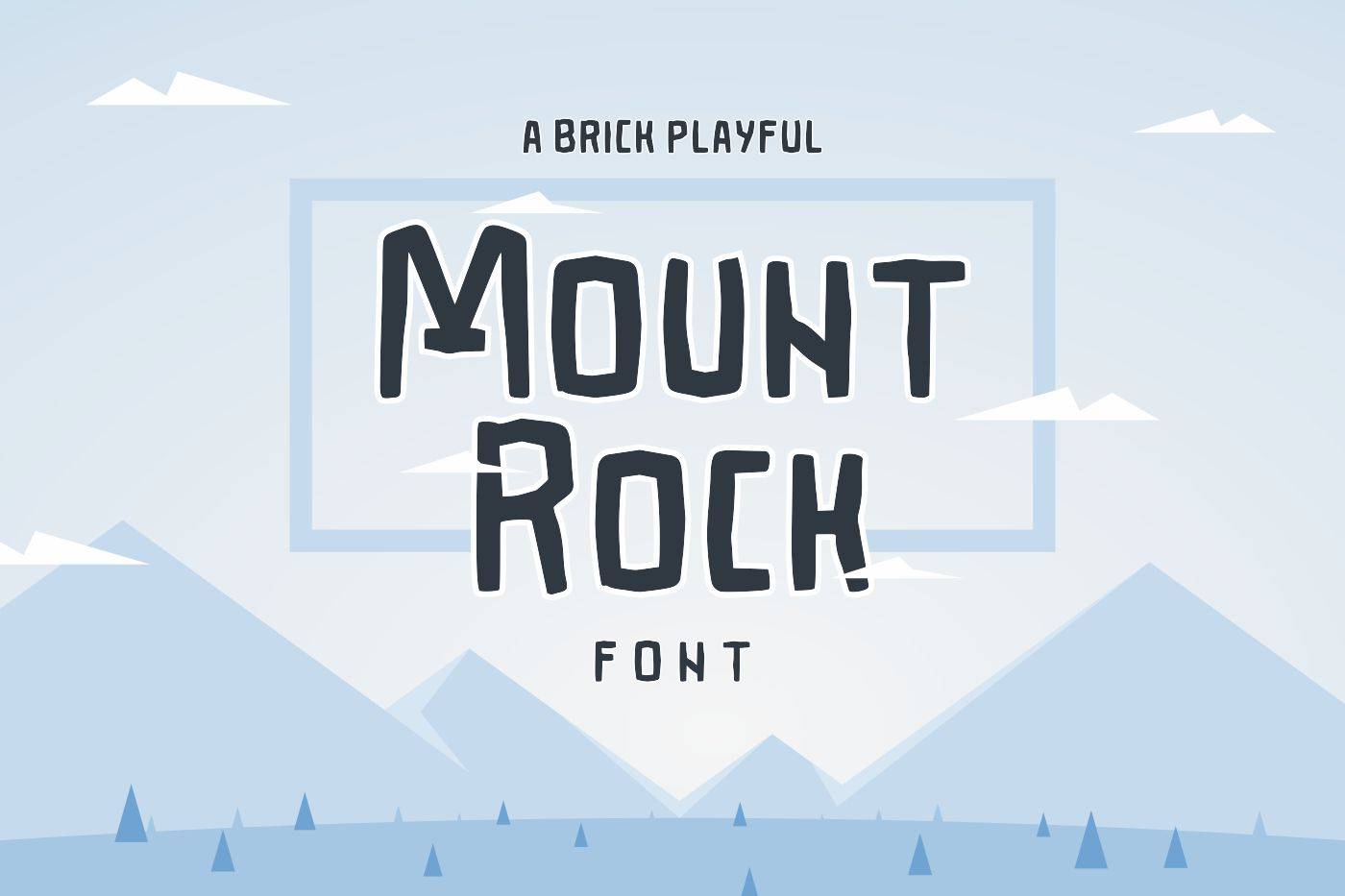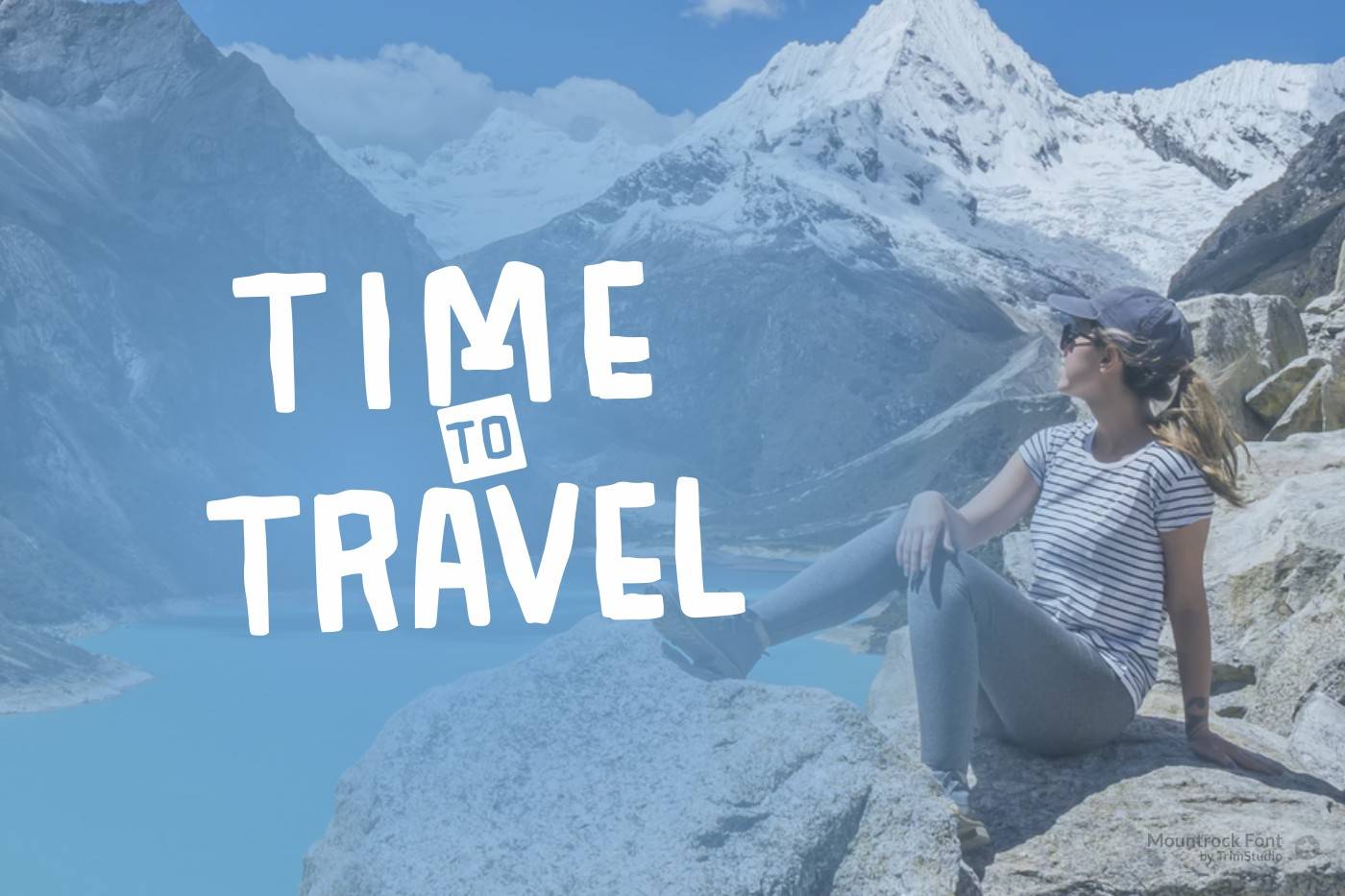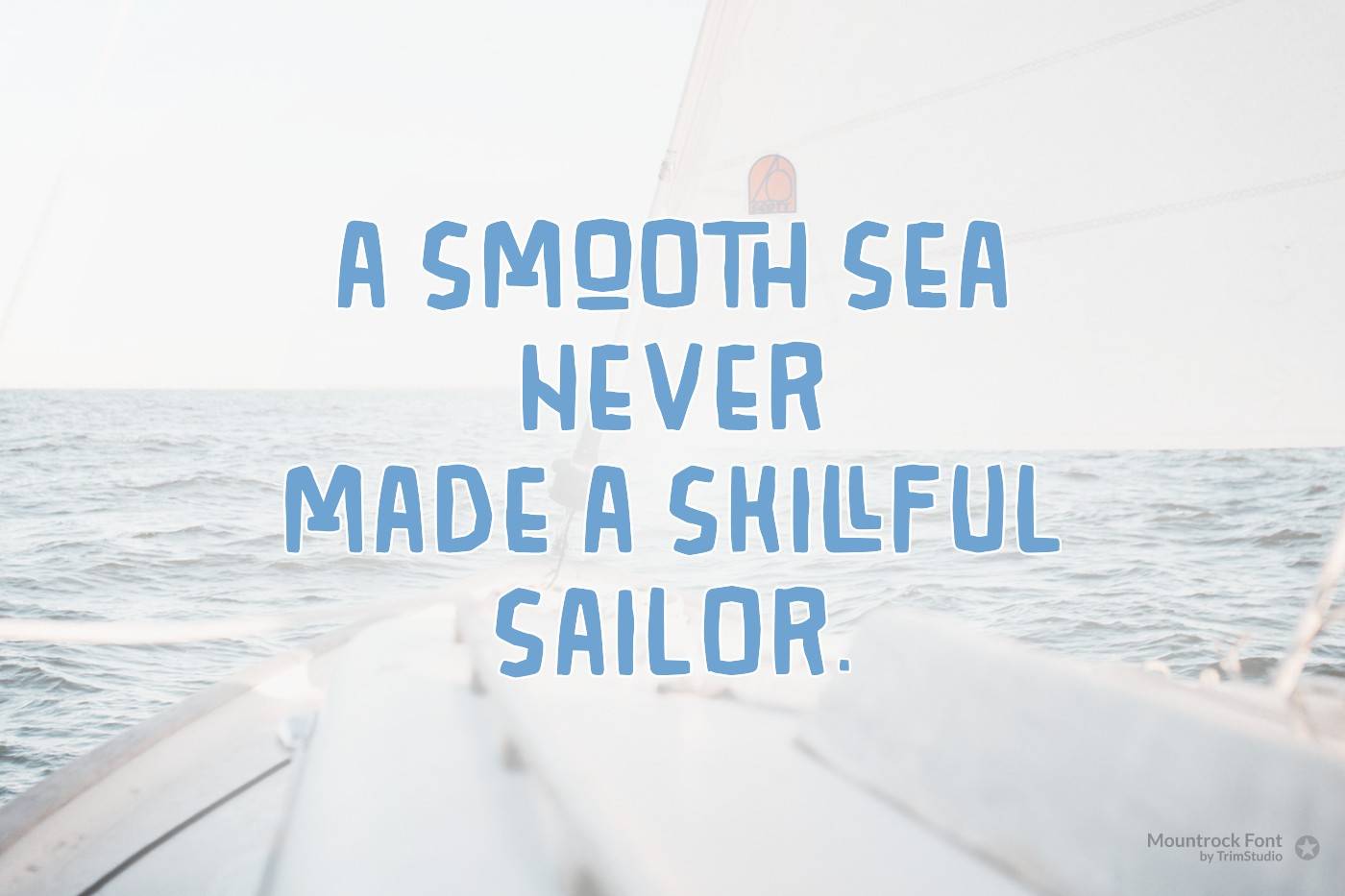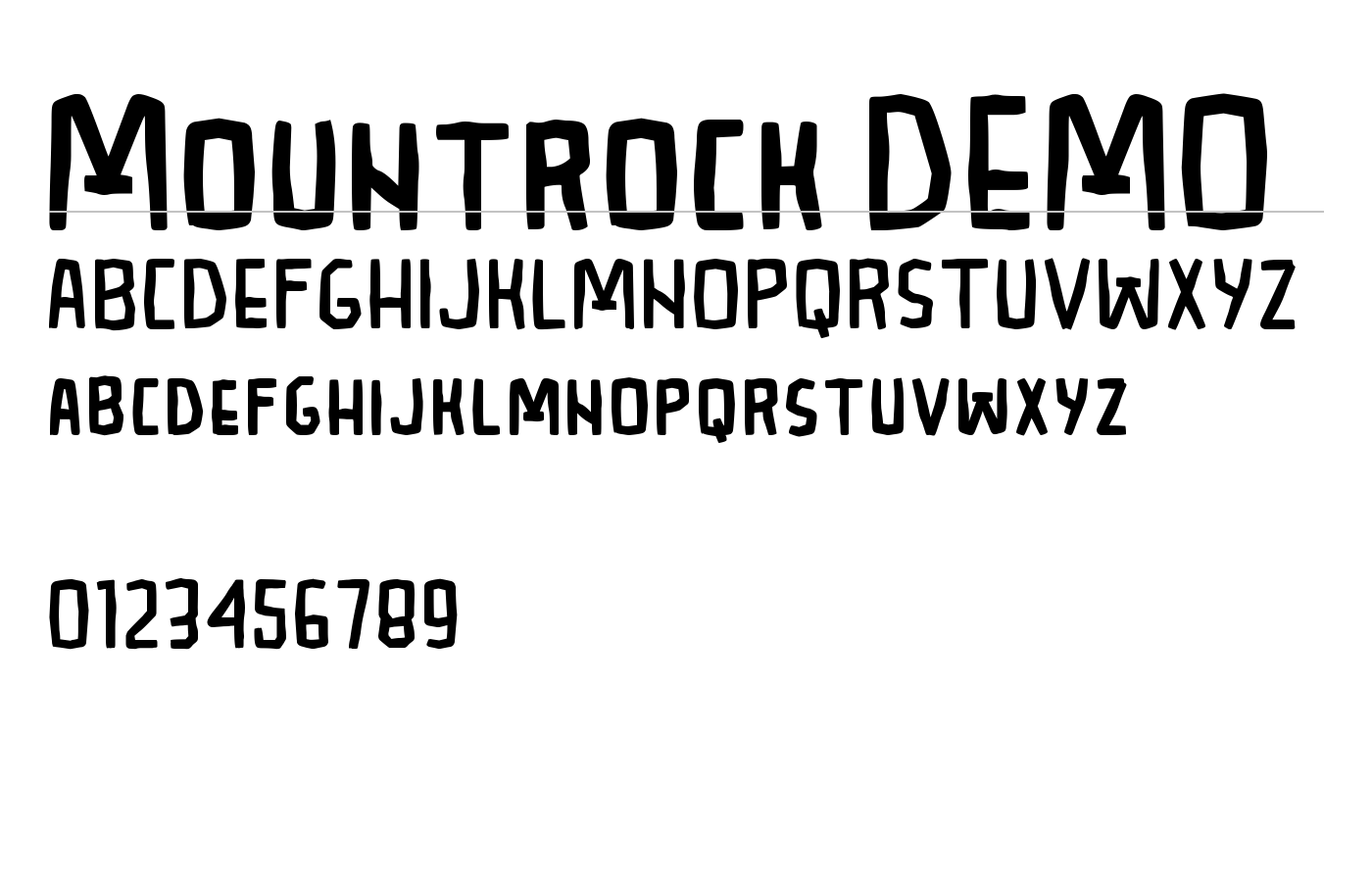
Mountrock is a bold, condensed sans serif font with a distinctively rugged and hand-crafted feel. Its uneven, slightly irregular letterforms and sharp, angular edges give it an adventurous, outdoorsy personality, making it perfect for projects that want to convey energy and authenticity, such as logos, posters, and branding for outdoor or creative industries. The all-uppercase style with quirky details adds character and impact, especially in headlines and display uses.
Mountrock Font
About Mountrock Font
| Font family | Mountrock Font |
| Designer | Trim Studio |